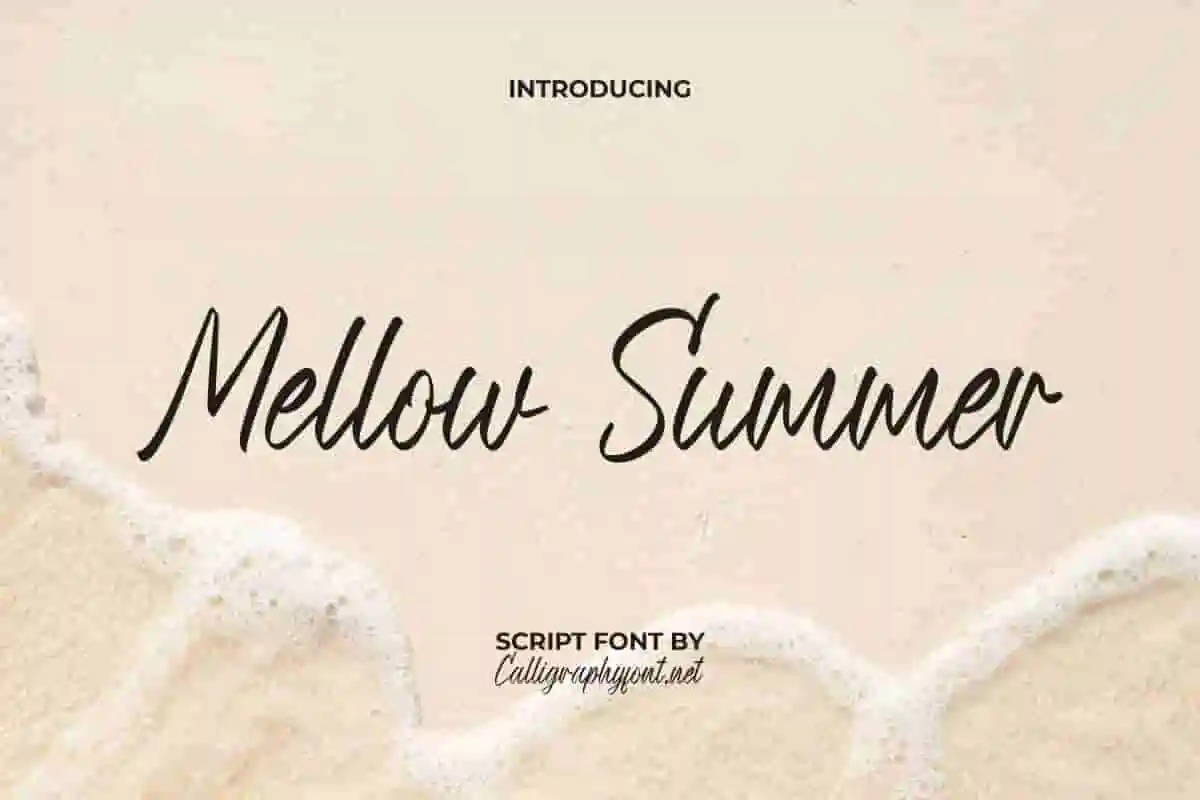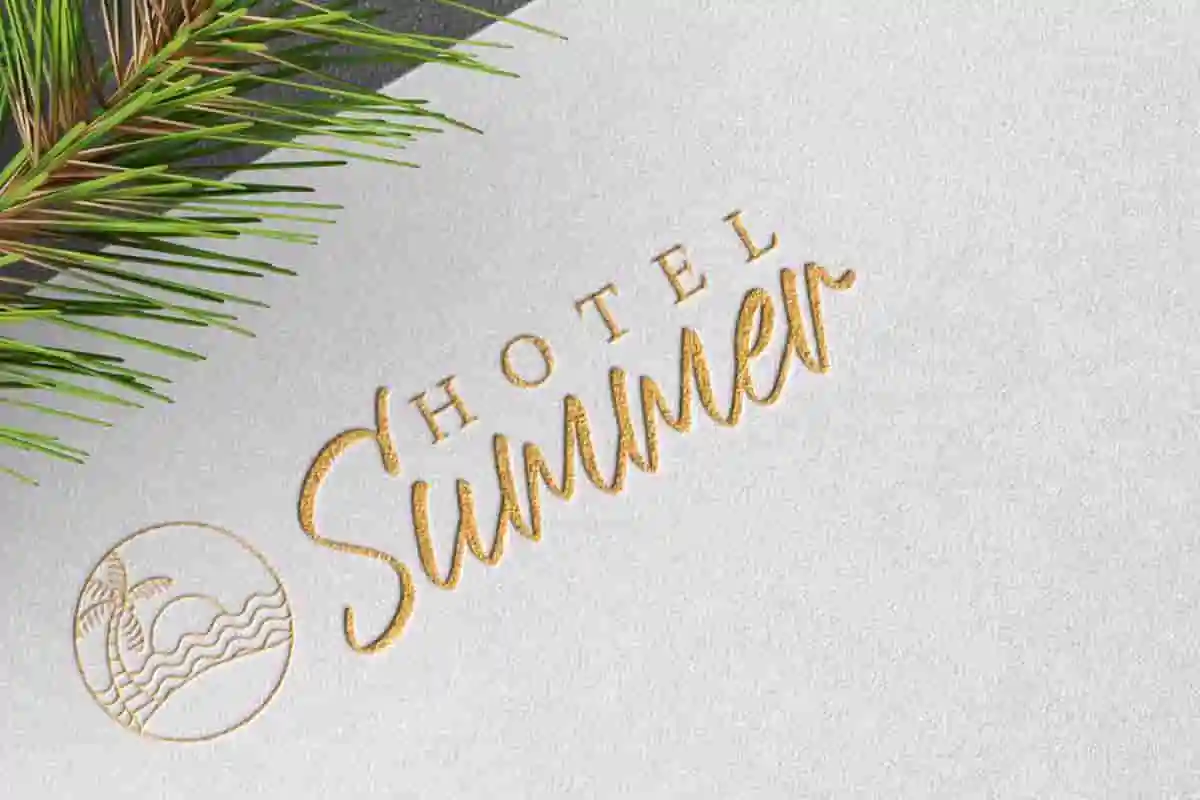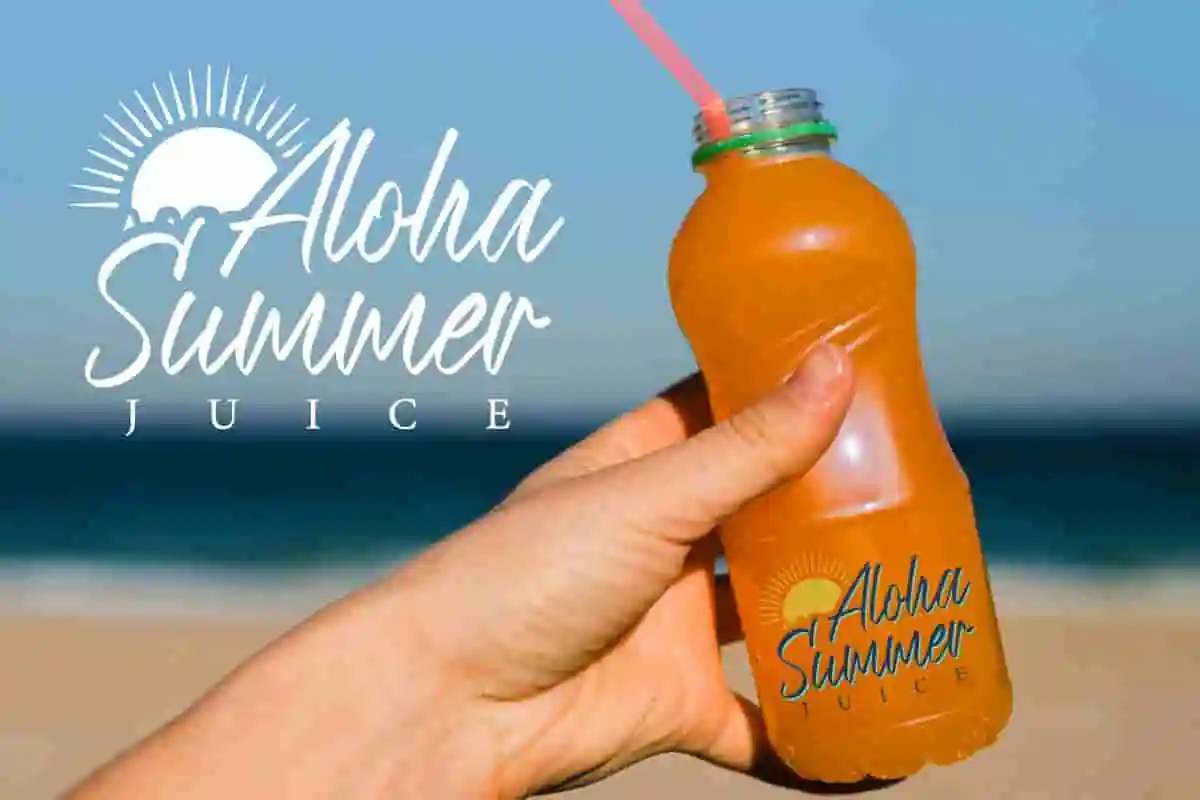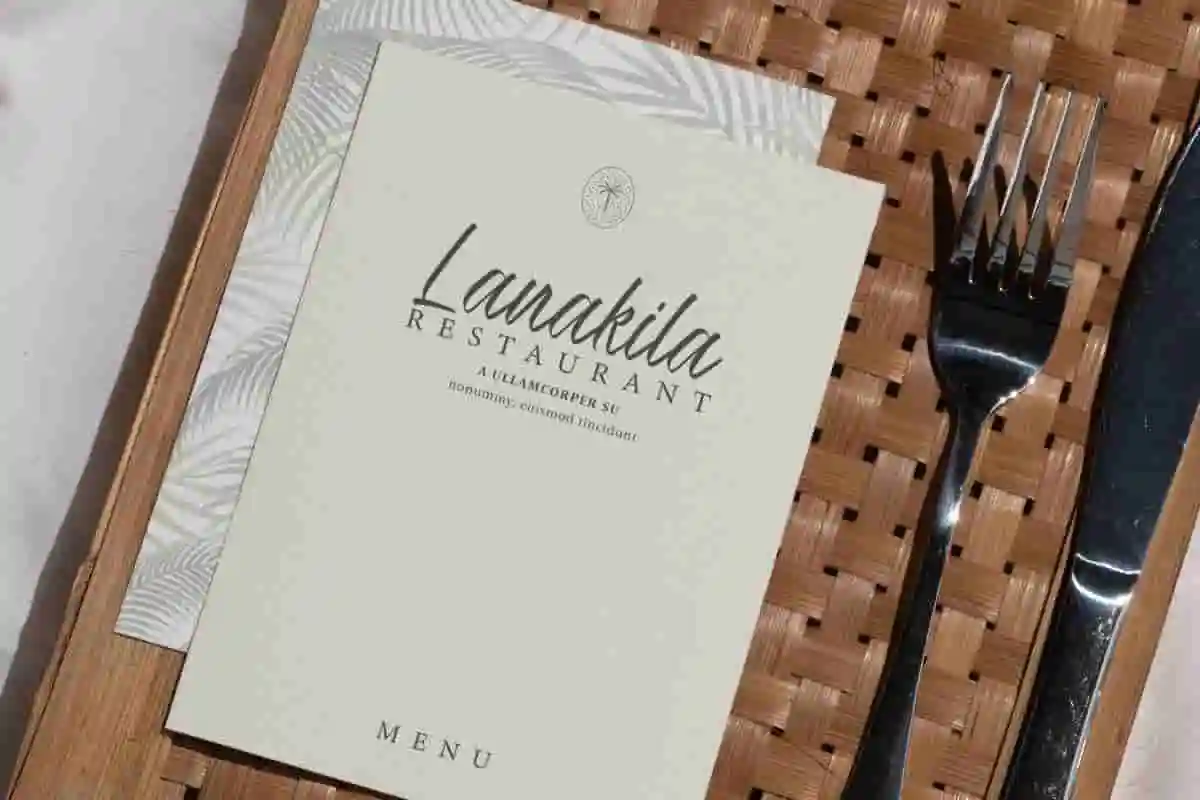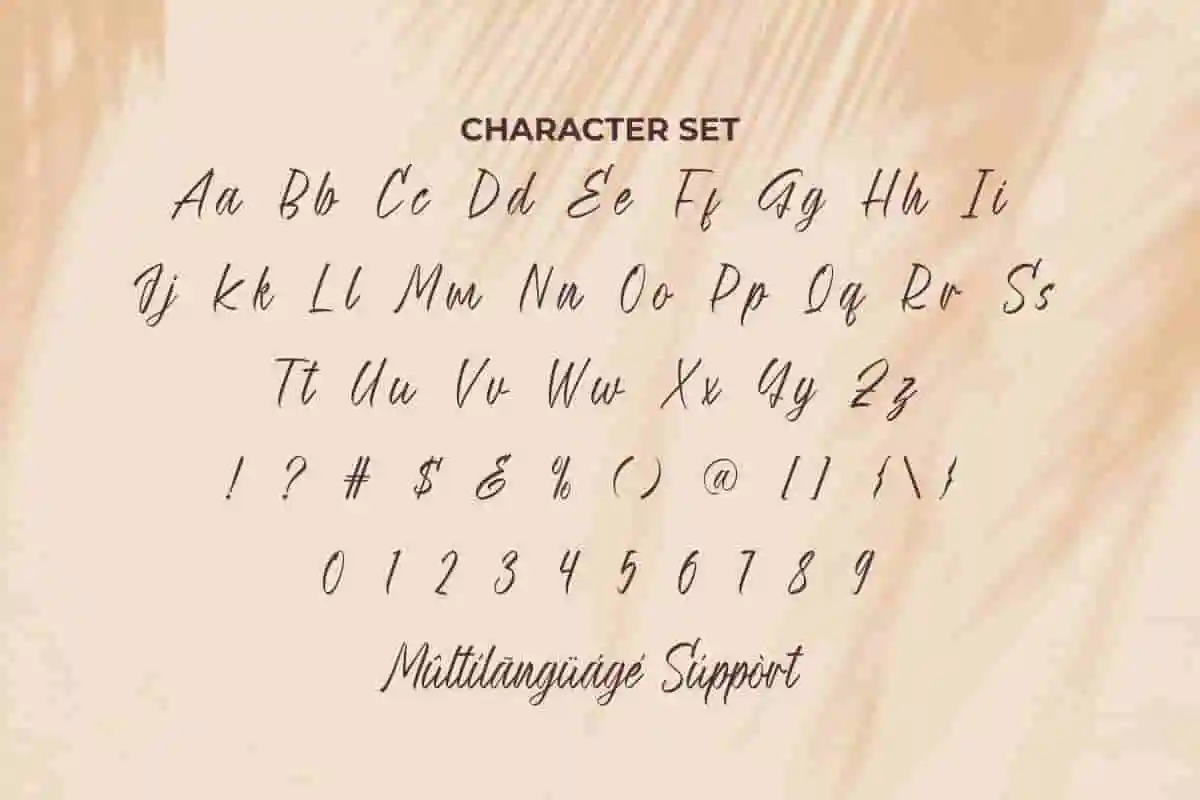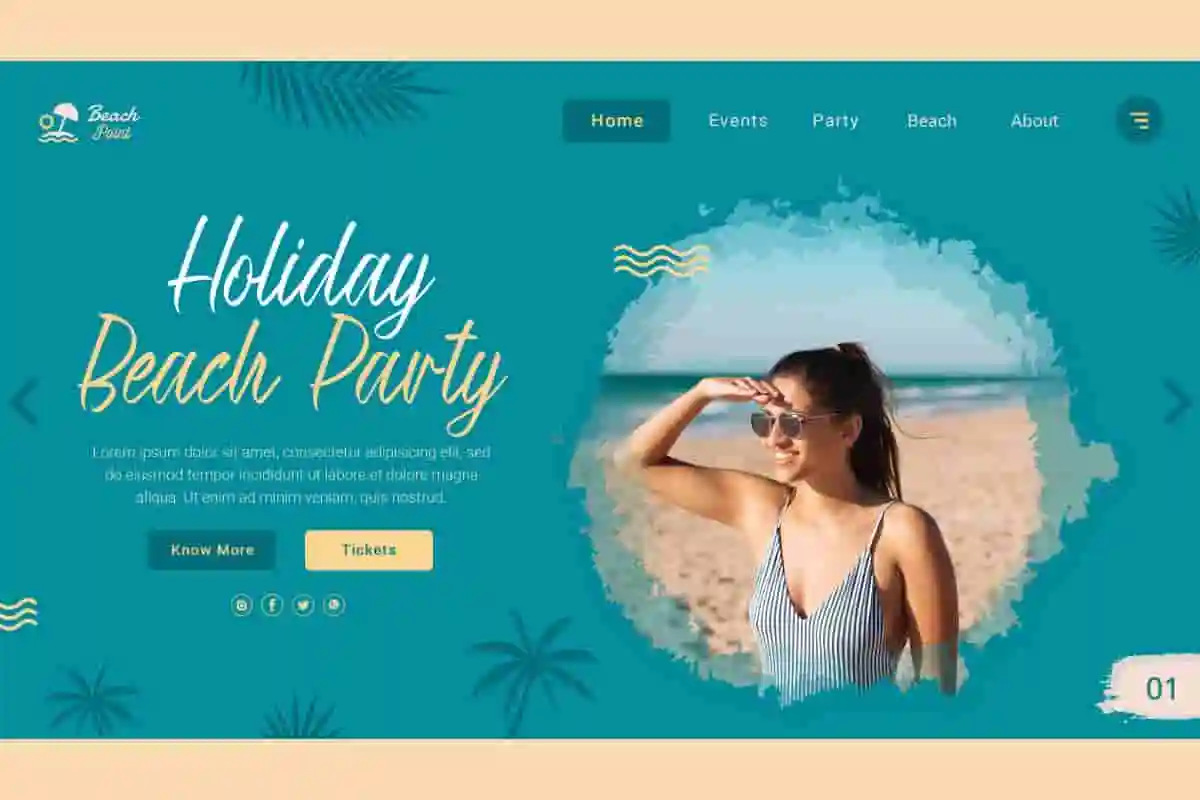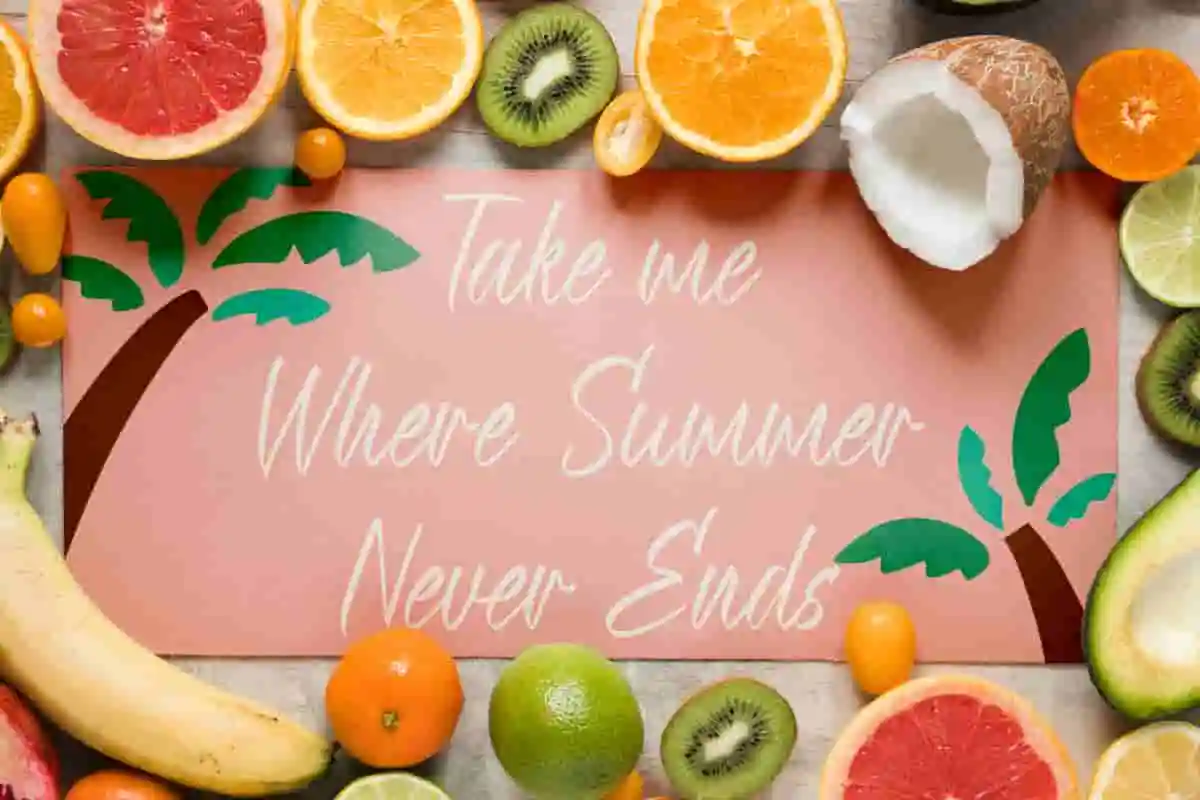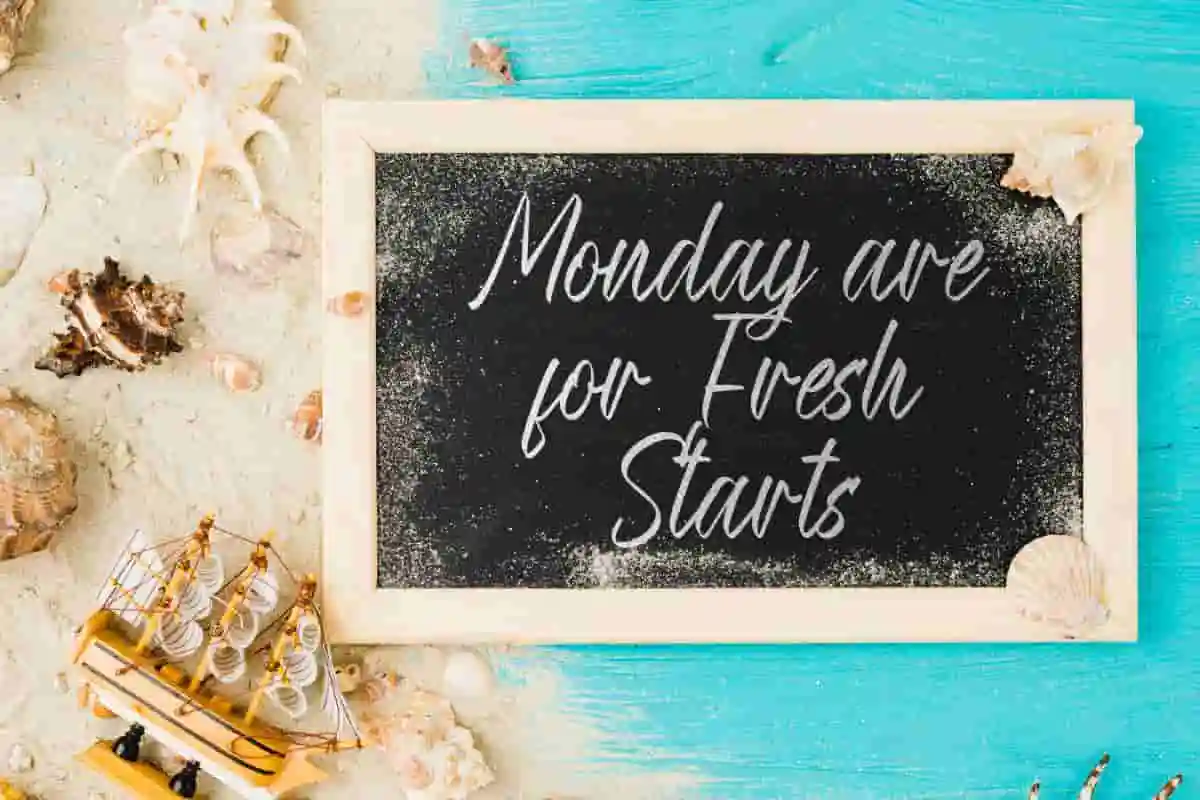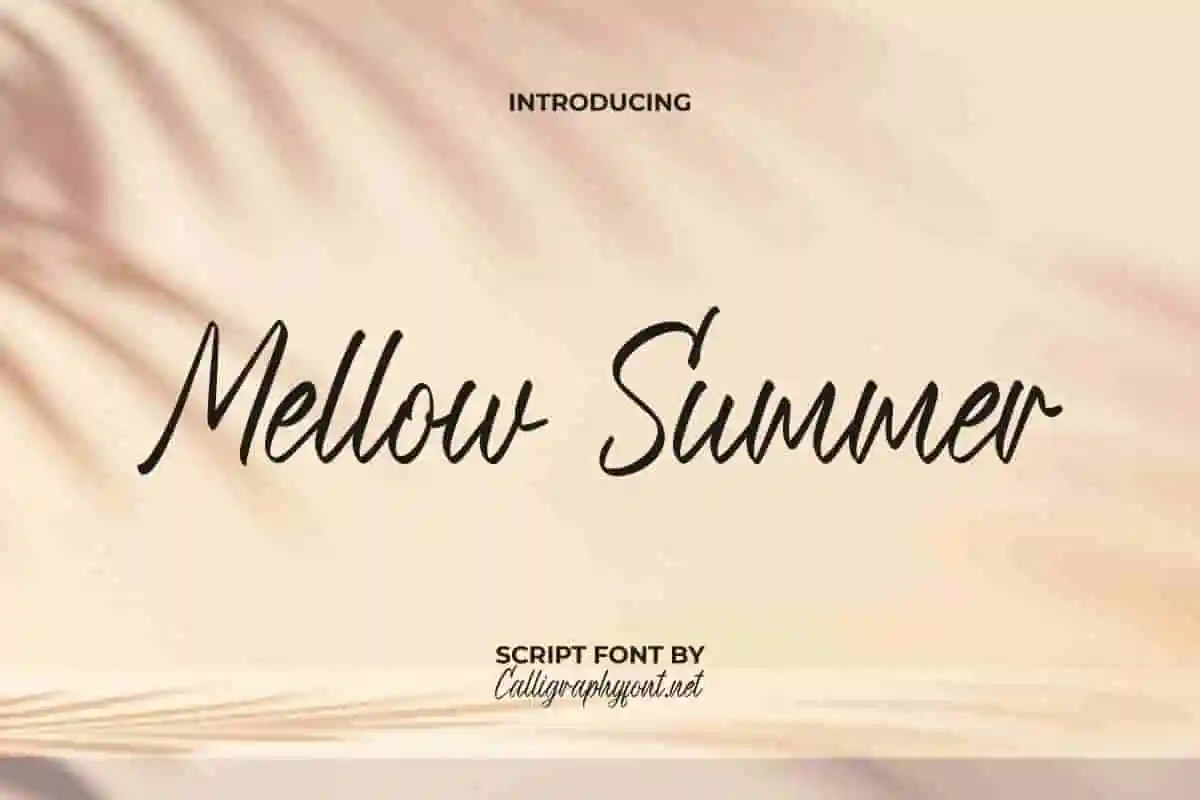
Mellow Summer Handwriting Font
Mellow Summer Font is a fresh script font with a beach holiday vibe. This font will be perfect for accessories, beach party, lodging, restaurant, signage, souvenir, summer drinks, website, etc.
Mellow Summer Font is a sleek handwritten script font with a fresh look created by Calligraphy Fonts. This typography takes on a summer theme that has an uplifting vibe and is matched with soft handwriting so it will suit any industry, such as accessories, architect, beverages, event organizer, fashion brand, florist, furniture, handicrafts, hotel, jewelry, printing, publishing, real estate, restaurant, skincare, spa salon, and many more.
Bring a touch of relaxed, sunny vibes to your designs with the Mellow Summer Handwriting Font. Inspired by carefree summer days and gentle ocean breezes, this handwriting font radiates warmth, charm, and effortless style. Perfect for lifestyle brands, greeting cards, social media posts, wedding invitations, and more, Mellow Summer offers a natural handwritten look that feels personal and inviting.
Introducing the Mellow Summer Handwriting Font, a beautifully crafted script that captures the easygoing spirit of summer. This handwriting font blends smooth, flowing strokes with a casual elegance that’s perfect for creating warm, inviting designs. Whether you’re designing social media graphics, wedding invitations, lifestyle branding, or personal projects, Mellow Summer adds a natural handwritten charm that feels genuine and heartfelt.
Capture the soft, soothing essence of summer with the Mellow Summer Handwriting Font. This beautiful, handwritten script font brings warmth and personality to every design, perfect for anyone who wants to create inviting and heartfelt visuals. With its smooth and flowing letterforms, Mellow Summer feels like a gentle breeze — casual yet elegant.
- Natural & Elegant Script
Mellow Summer Font comes with a full set of Uppercase and Lowercase Basic Characters, Number, a large range of Punctuation and Symbol. It will be ready to accompany you on any project, such brand logo, brochure, cover, embossed design, invitation, label, packaging design, signage, stationery, sticker, title, website, or just the art of writing on a background.